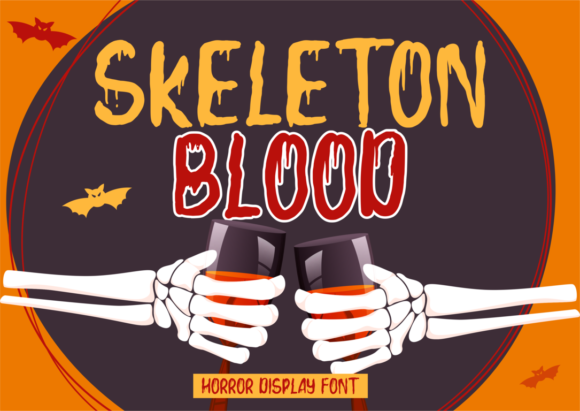
Prepare to be mesmerized by Skeleton Blood, a display font that evokes the very essence of the macabre! Its chilling and captivating aura will haunt your designs, leaving an unforgettable impression that will send shivers down your spine.
Dive into the realm of horror and let Skeleton Blood cast its spellbinding charm over your creations. Whether it's an art book that whispers tales of the supernatural or a poster that demands attention, this font will weave a web of intrigue that will captivate audiences.
Skeleton Blood isn't just a font; it's a gateway to a world of boundless creativity. Unleash your imagination and let its eerie elegance guide you to unimaginable depths. Embrace the darkness and watch as your designs transform into masterpieces that will haunt the minds of all who behold them.
So, why settle for ordinary when you can embrace the extraordinary? Let Skeleton Blood seep into your veins and inject your designs with a dose of spine-tingling charm. Download it today and let the haunting beauty of this font unleash your creativity like never before!